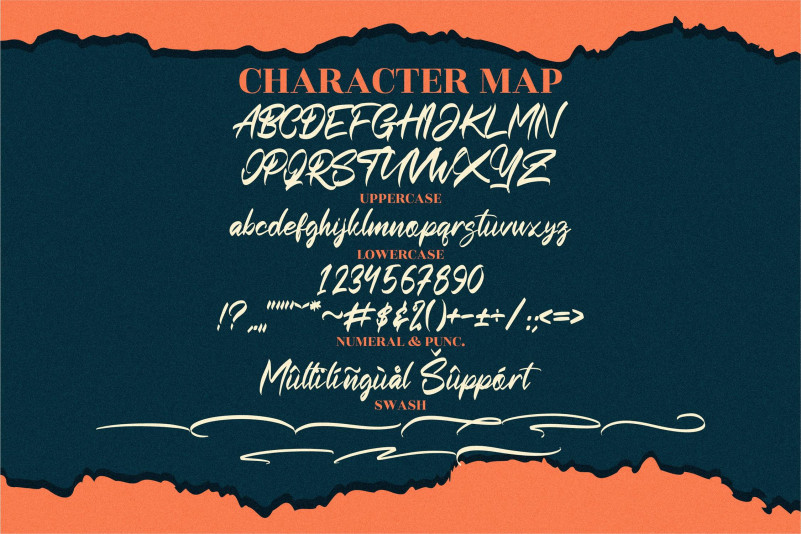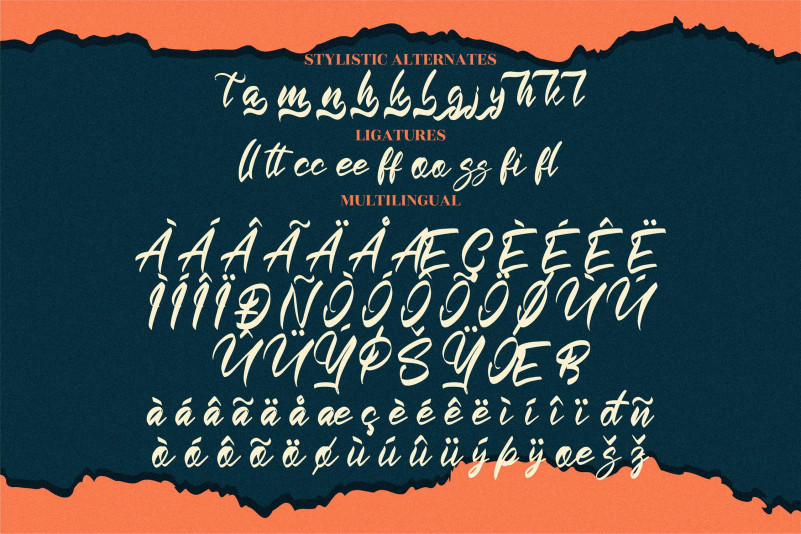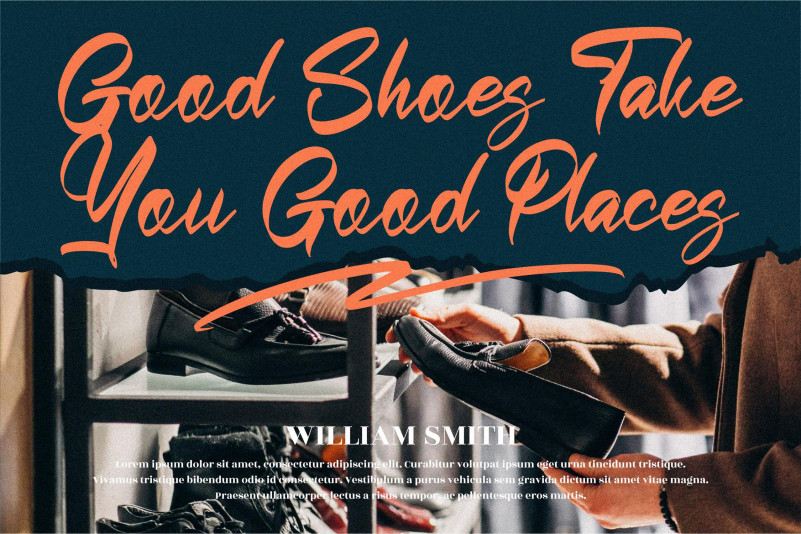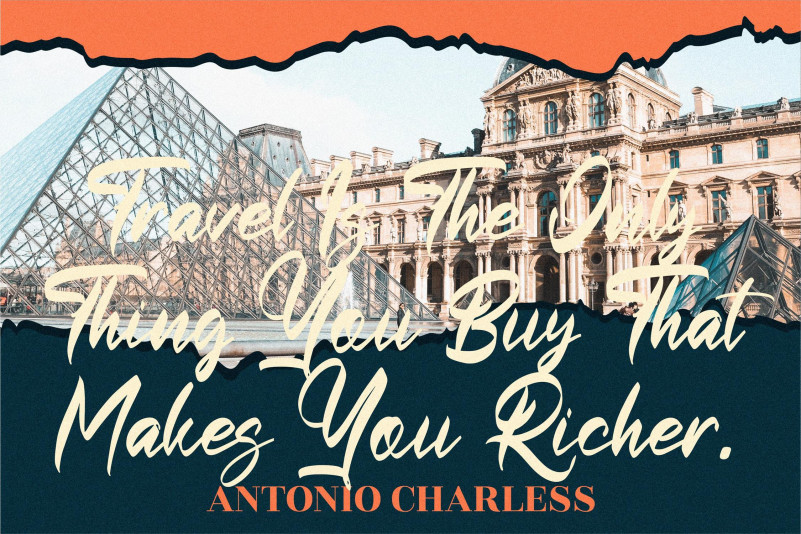
Tomihesta Font
Tomihesta Script Font
This is a modern and bold paint brushed script font. This font is neatly crafted and highly detailed. Whatever the topic, this font will be a wonderful asset to your font library, as it has the potential to enhance any creation. This font is PUA encoded which means you can access all of the glyphs and swashes with ease!